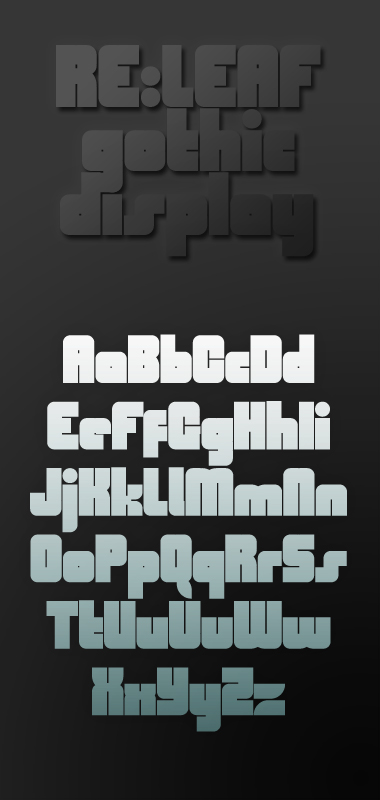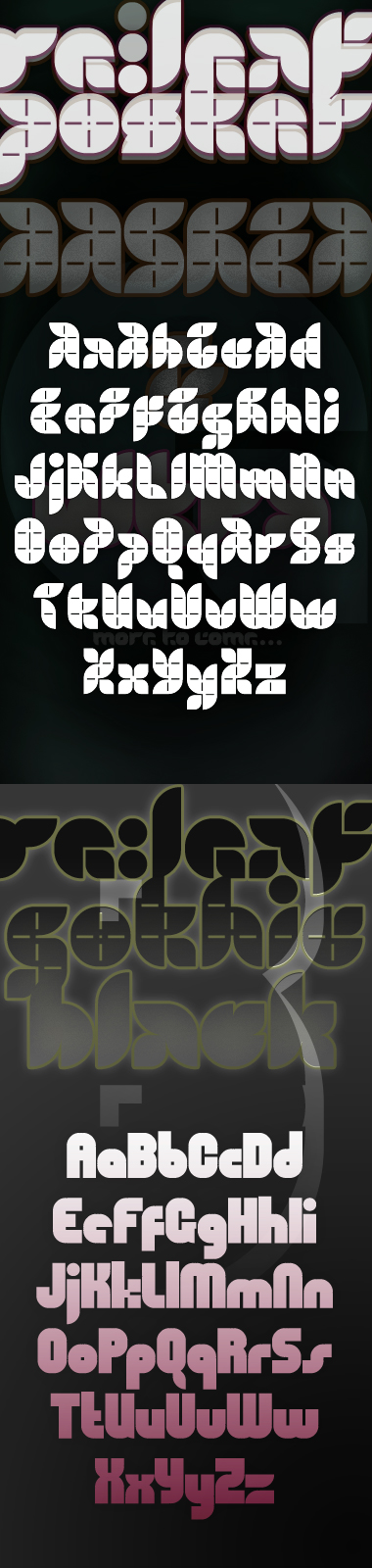
A soft, rounded font inspired by Afrojet's Mooch and Mango Solid. Has a few accents, will be part of a family including Squared, Extended,Condensed and Stencil variants.
Easy there fontstructors. How about a history lesson to clear up a few things?
The first fontstruction in a similar style to Peach – Plump by nathancox – was released before the official announcement of fontstruct. It was, in fact, included in the announcement here (third-to-last sample) and here.
Peach, like Plump, uses 2x2 filters and is therefore counterless. DJ Nippa, Em42, and Afrojet’s fat-face experiments (the Mooch and Mango series) all use 1.8x : 1.8x filters with brick overlaps to generate their counters. This complex technique creates a distinct effect more akin to folding sausage links than the inflated-balloon contortions of a true 2x2 fat-face. Therefore, Peach is a departure from the cited sources (Mooch and Mango) and a revisitation of an earlier, perhaps unknown form.
The fractional scaling + brick overlaps that give Mooch and Mango their characteristic slits, dots, and notches for counters were all techniques I developed and first published under my now defunct williaum account. This was the Re:leaf series, the last highly innovative (and, as always, cloneable) contributions I made under williaum before deleting the account.
Like brickstacking, the scaling + overlap trick that allows for maximum curves caught on and became the fundamental approach for many later works. Notable examples include those cited above in addition to a collection of other fonstructions by afrojet, thalamic, Em42 (the delisted Mango, one of his first published fontstructions), and DJ Nippa amongst others. geneus1 also made a play on “fractional scaling” with overlaps when he took his own innovative tangent in the aftermath of Re:leaf Gothic.
It’s just part of the fontstruct toolbox these days, one of myriad techniques fontstructors call upon to create their diverse modular arrays. Surely some folks arrived at the idea independently of Re:leaf Gothic or the works that it would go on to inspire even after disappearing. A year later, Meek revealed one of the original FontStruct logo concepts utilized this technique!
And thus concludes this lesson in FontStruct history. I will close with an image exhumed from the fontstruct samples archive. Though the original williaum account is long gone leaving nary a direct link outside the memories of the earliest fontstructors, we can go back through a chronological listing of all images posted by users on this site to discover this 185th sample circa mid-August, 2008:
...and since Re:leaf Gothic Display does not include maximum curves, here are combined samples #178 and #183 for the full body of evidence. Remember folks, the test is on Friday. ;-)